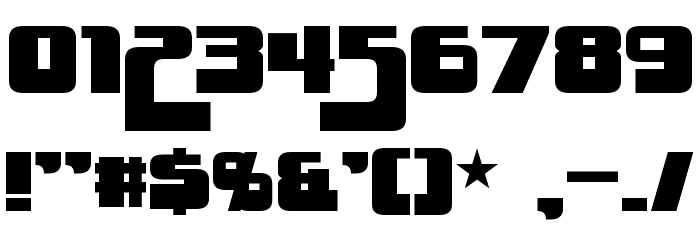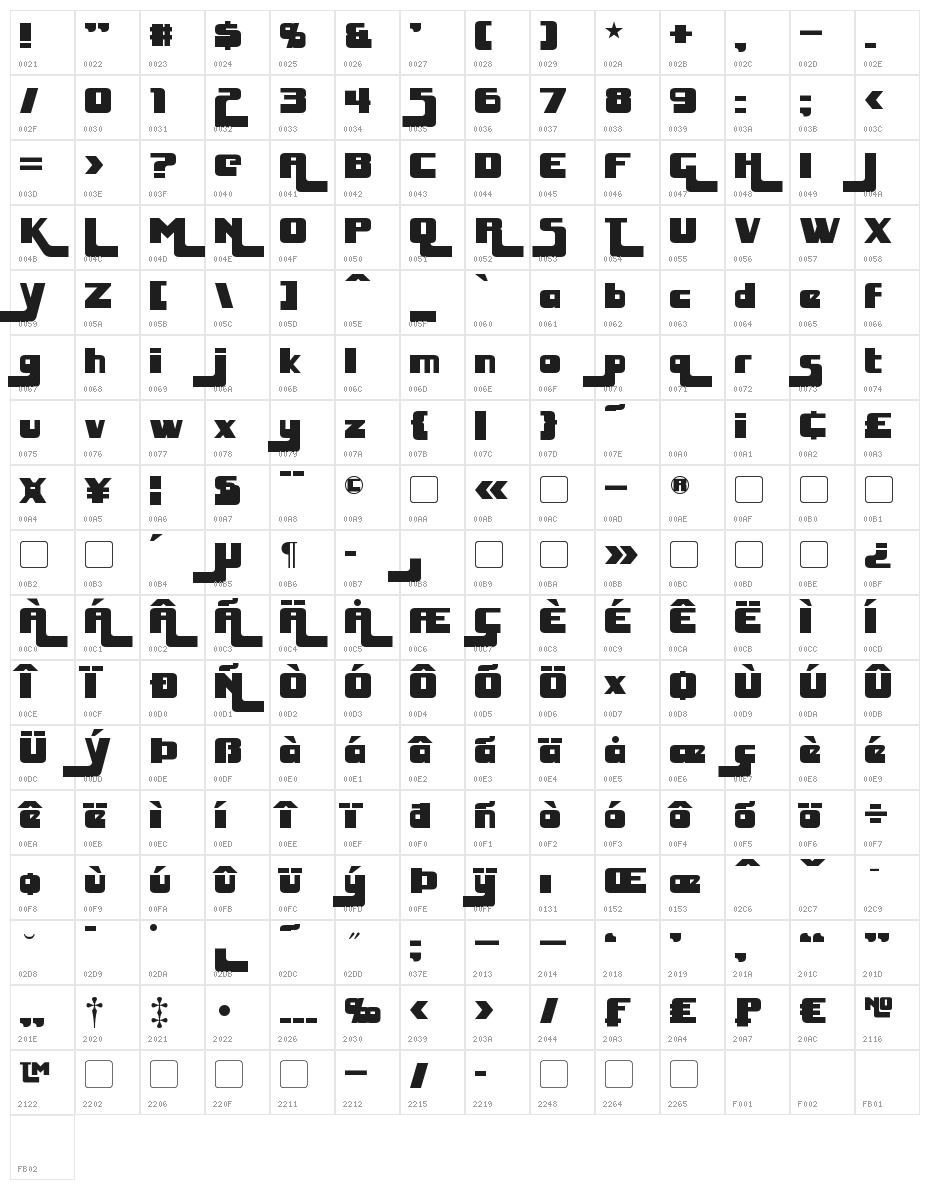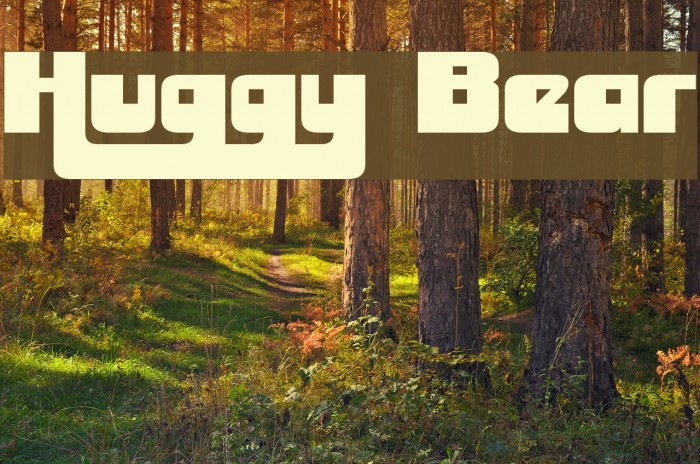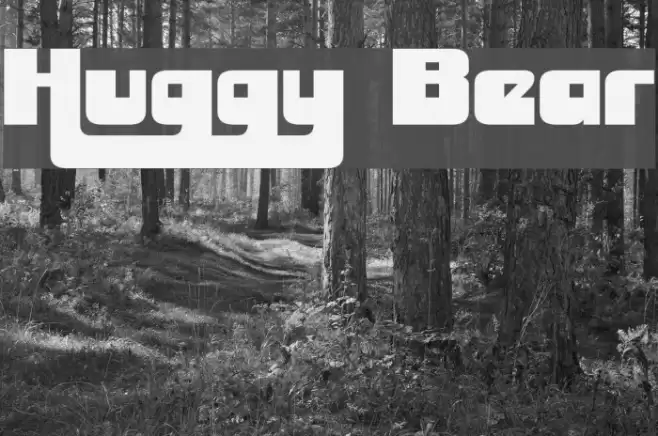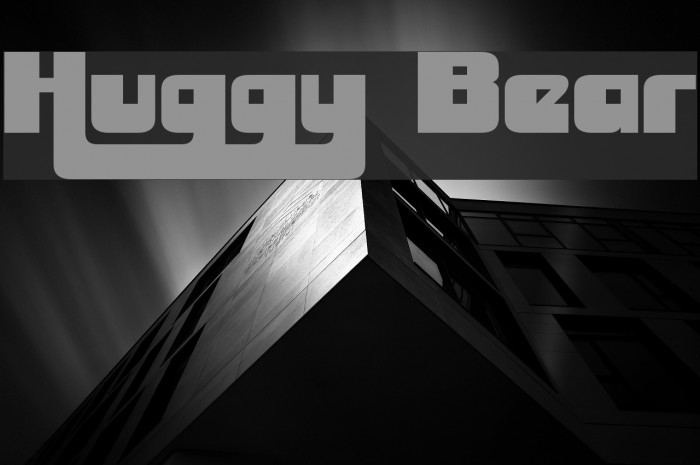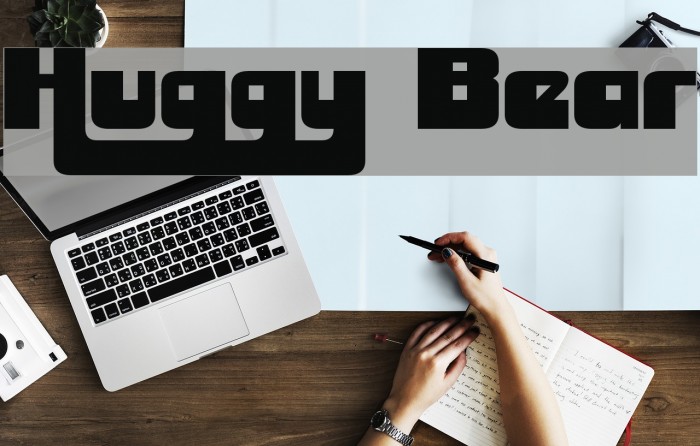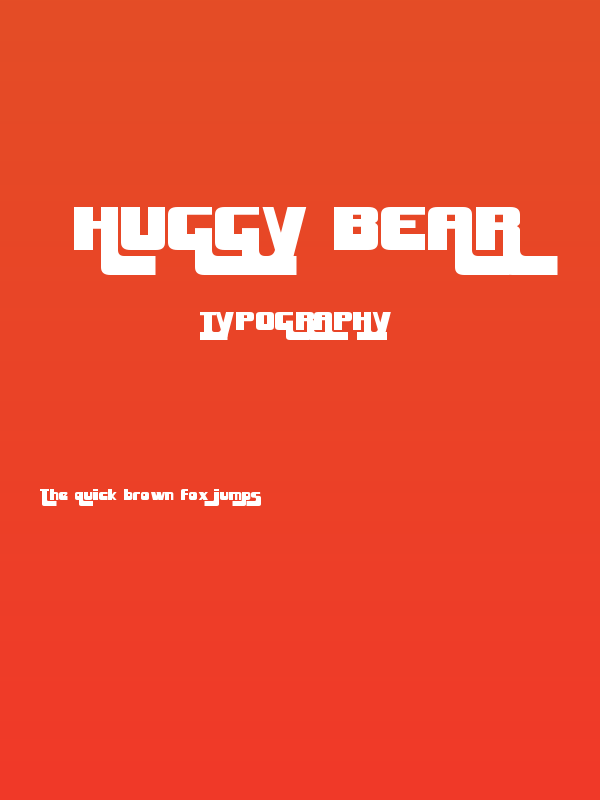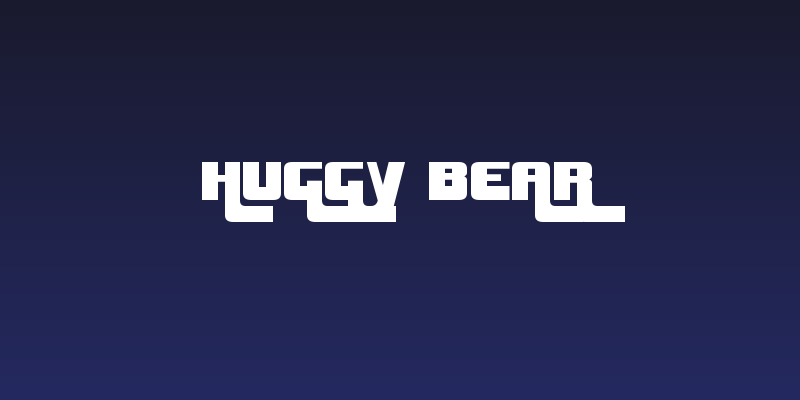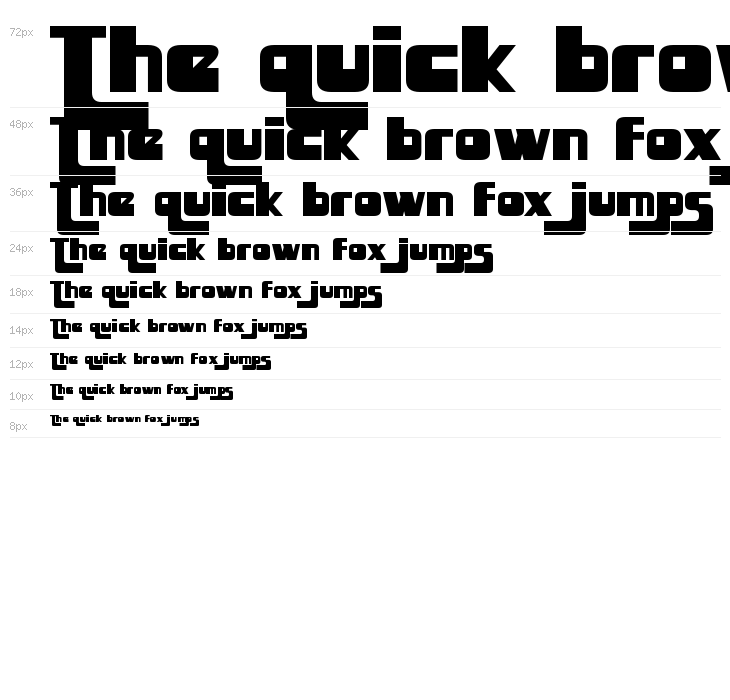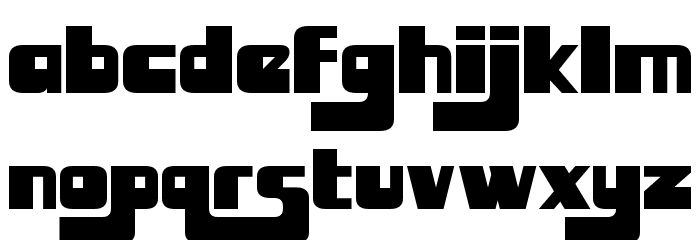
Huggy Bear Font
Huggy Bear Description
This font features a bold, geometric style with a strong presence. The characters are blocky and have a distinct, modern look, characterized by thick strokes and a uniform weight. The design incorporates sharp angles and straight lines, giving it a futuristic and industrial feel. The uppercase letters are particularly striking, with a consistent height and width that create a cohesive appearance. The lowercase letters maintain the same boldness, ensuring readability while retaining the font's unique style. Numbers and special characters are designed to match the overall aesthetic, making this font versatile for various design needs.